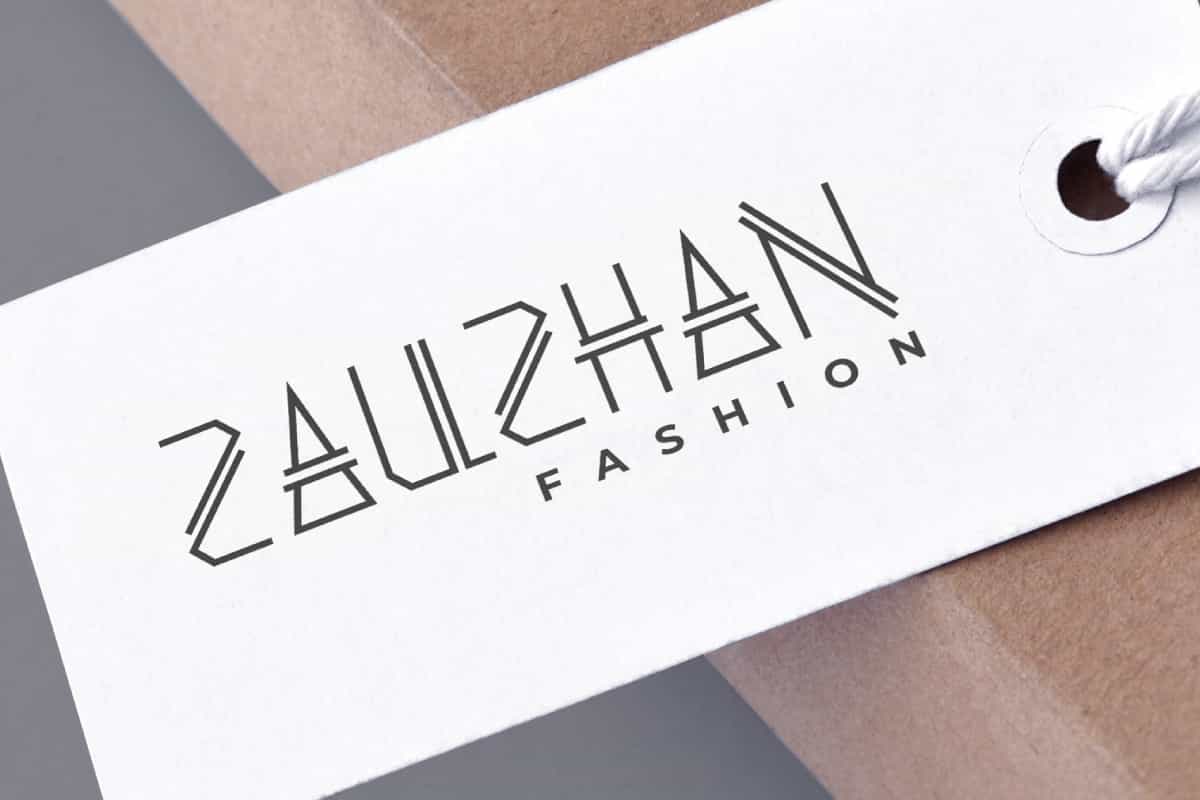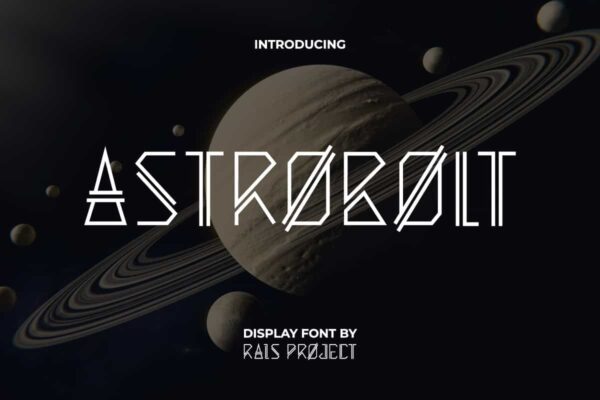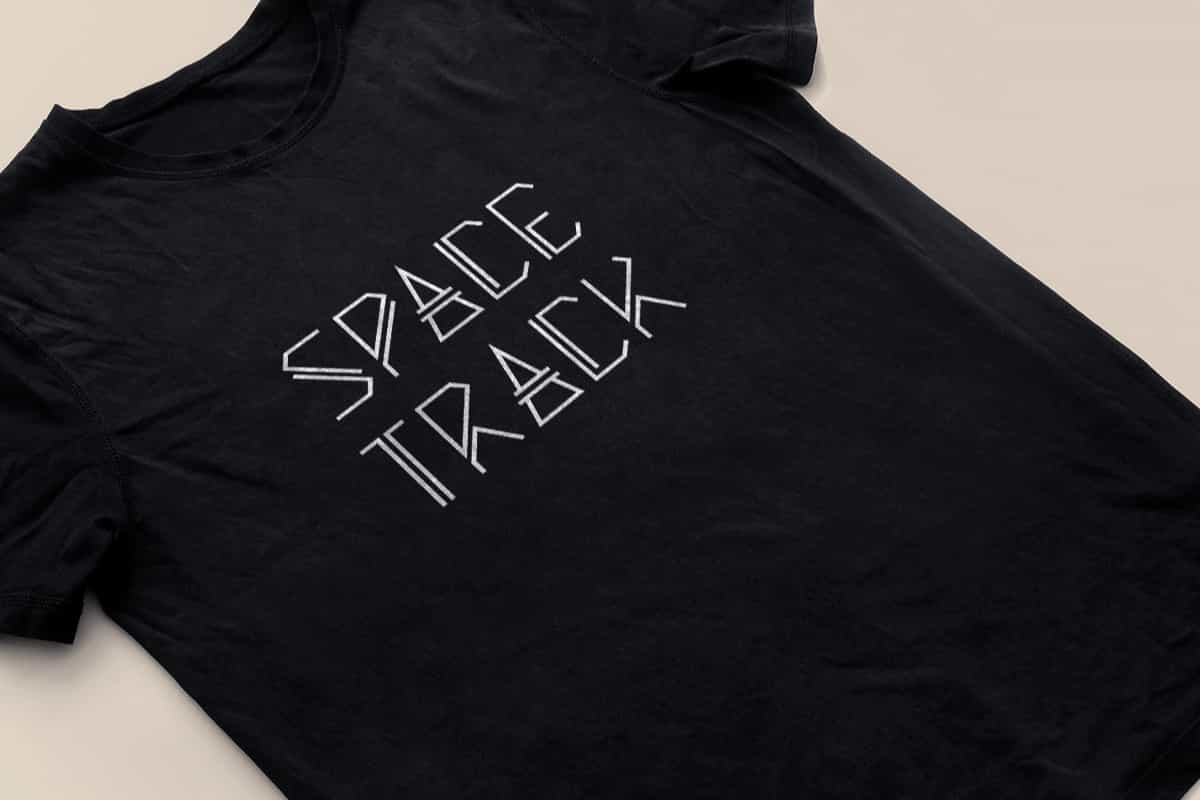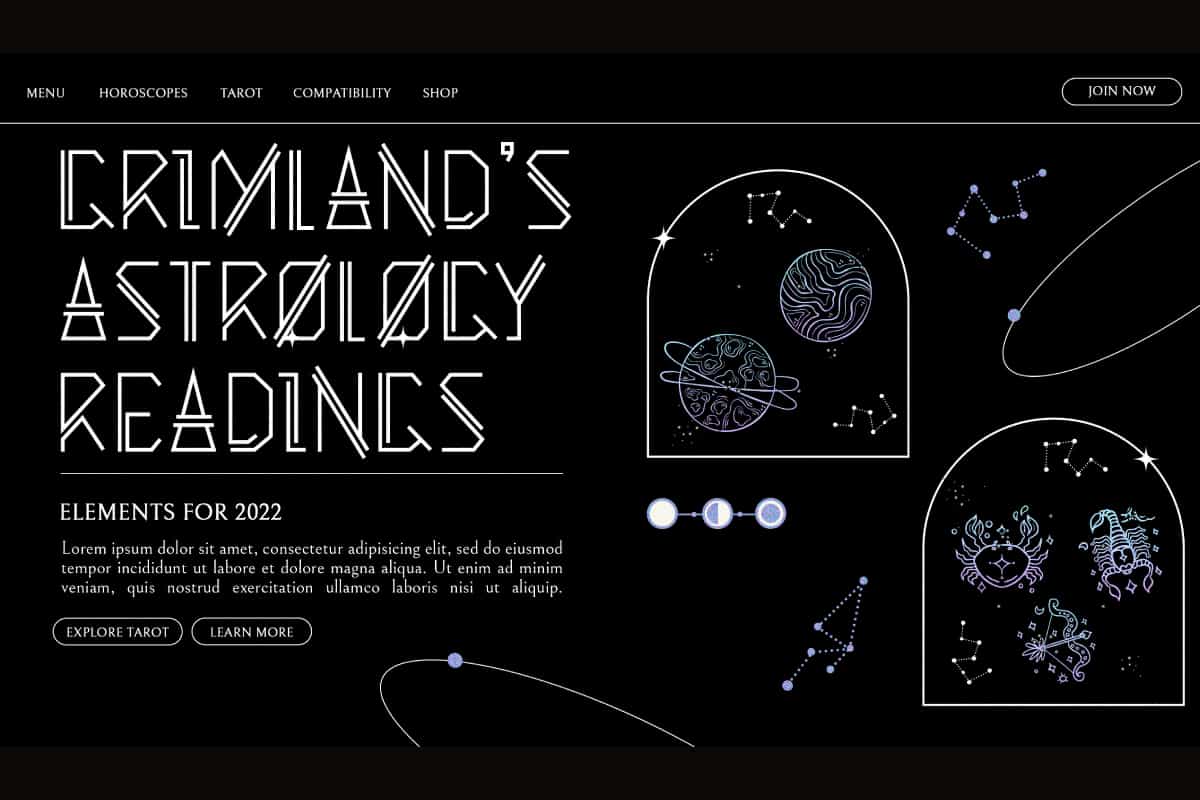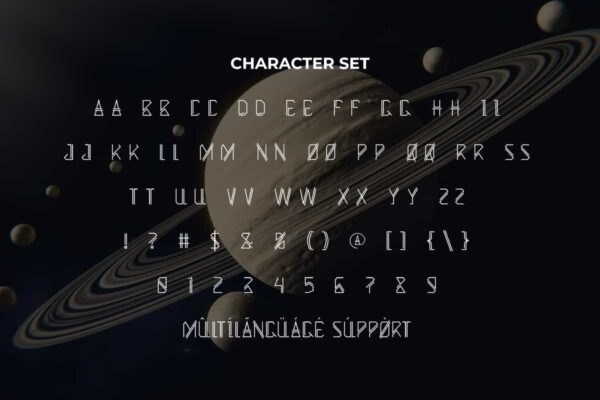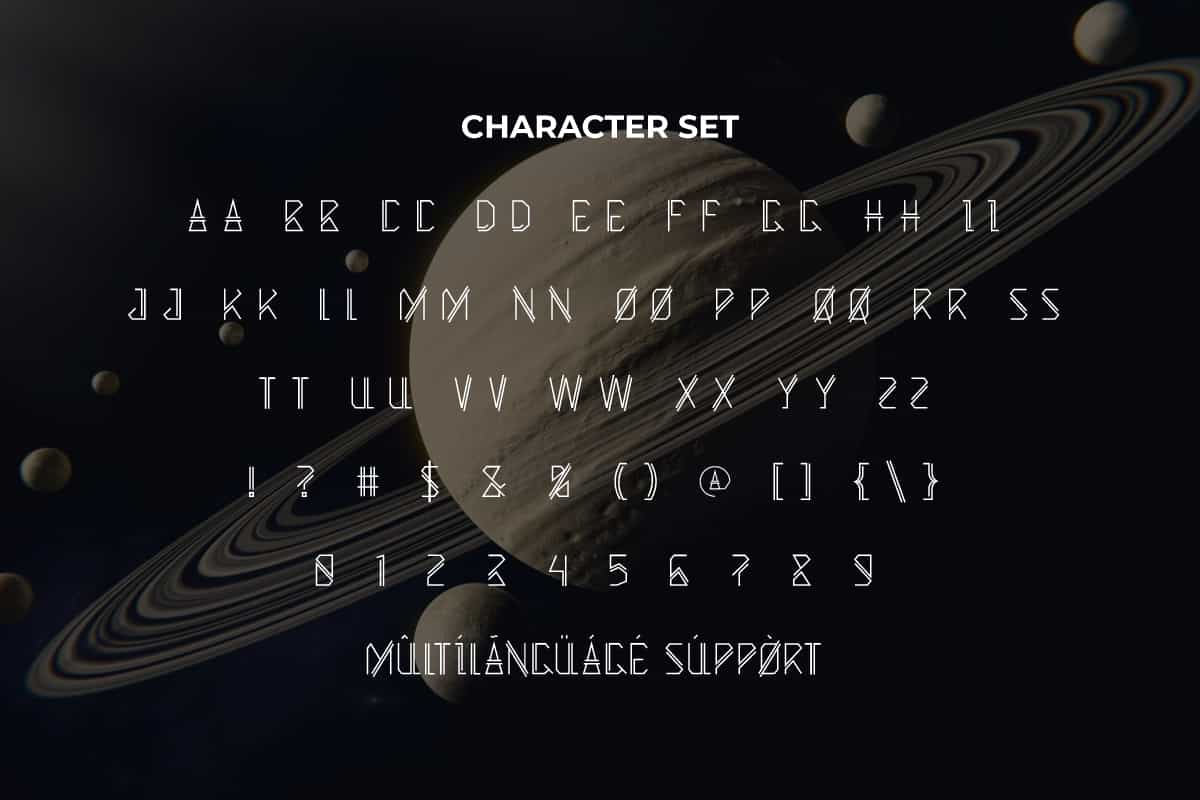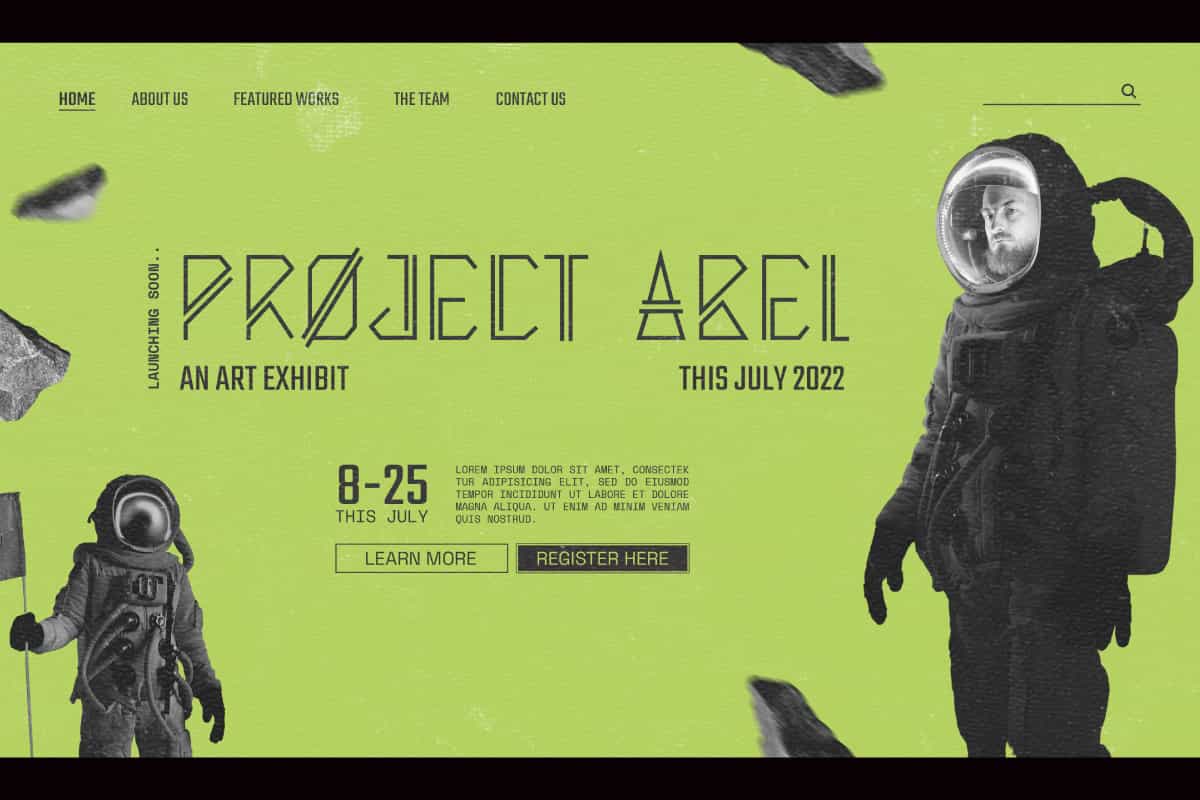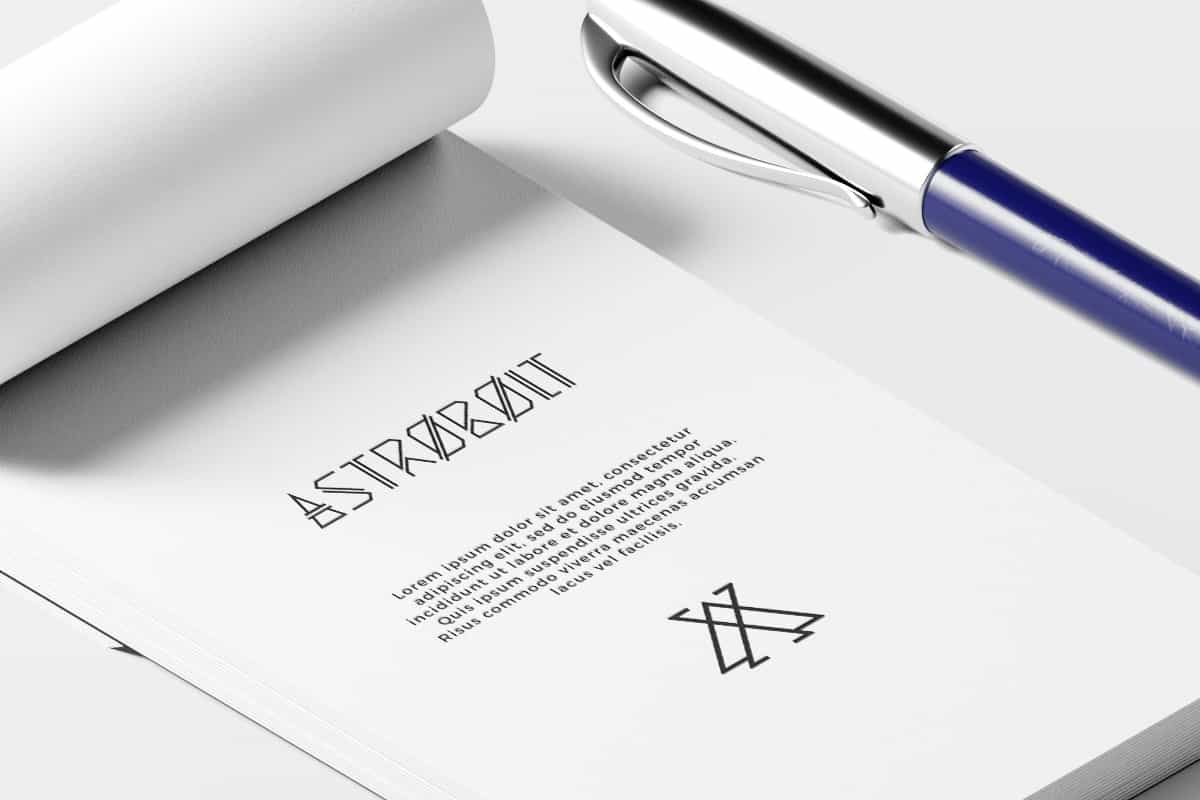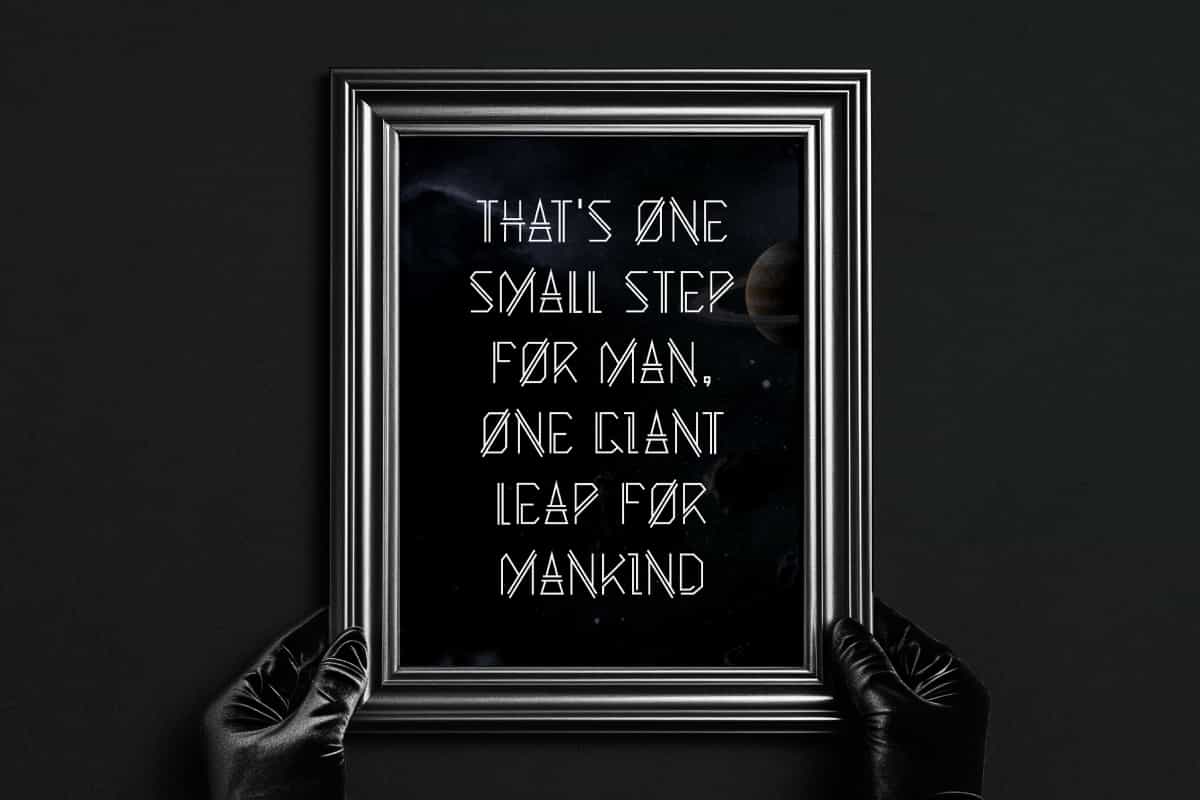
Astrobolt Font
Astrobolt Font is a futuristic techno space planet galaxy font. It’s unique and futuristic that will be awesome for many projects!
Astrobolt Font is a techno futuristic space planet galaxy alien display font by RaisProject. This font can convey the space theme in a design very well and is pleasant to look at. It will look great on custom design, label, signage, poster, invitation, poster, quotes, web, and more!
Astrobolt Font includes a full set of ALL CAPS for Uppercase and Lowercase Letters, Numerals, and large range of Punctuation. This creative font will be loved by many people and will be suitable for various industries, such as fashion, game, sports, cafe, event or festival, printing, publishing, sports, etc.